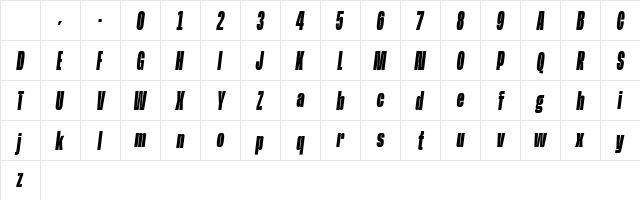
Complete Base Neue Sup Cond Obl Bold Italic glyph index. Displaying only characters natively supported by Base Neue Sup Cond Obl Bold Italic font.
Base Neue Sup Cond Obl is a composed and adaptable typeface that performs quietly and consistently across a wide range of design contexts. The slanted form adds forward momentum and visual energy. Its bold stroke weight gives it real presence on the page. Its narrow stance lets it pack a punch even in space-constrained designs.
Pro Tip: Use Base Neue Sup Cond Obl for emphasis, pull quotes, and subheadings where its slanted energy can add rhythm to the layout.